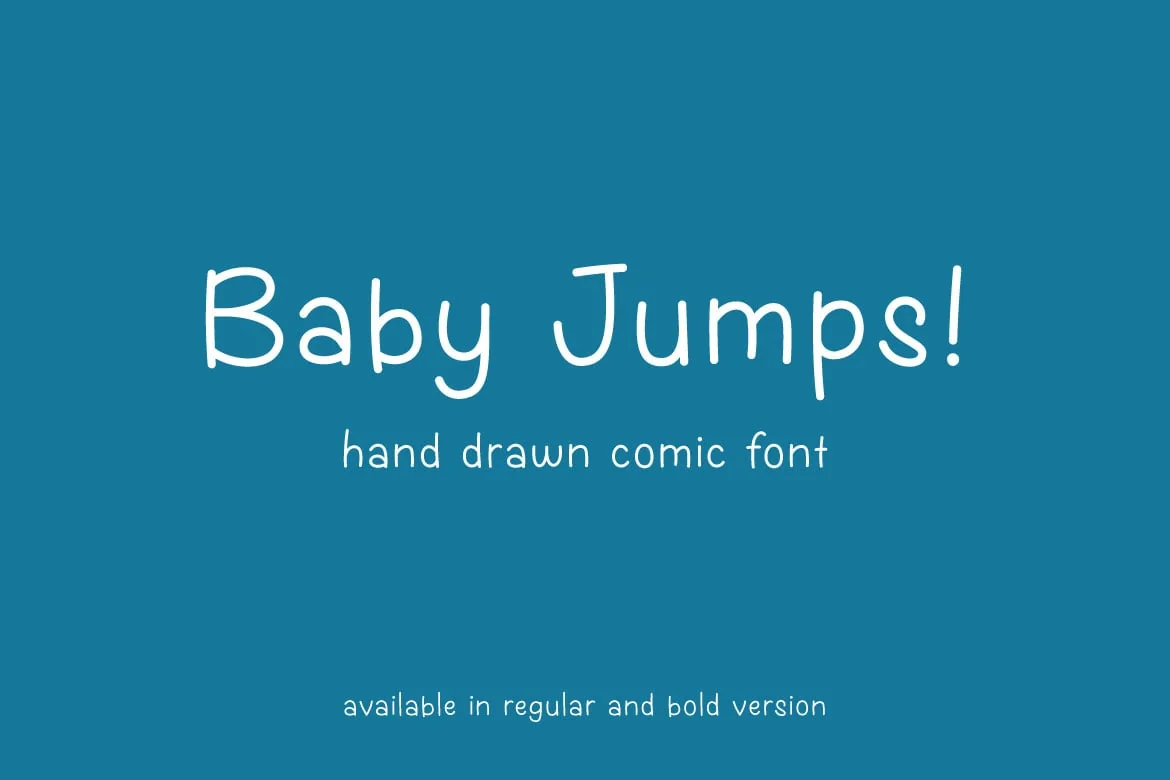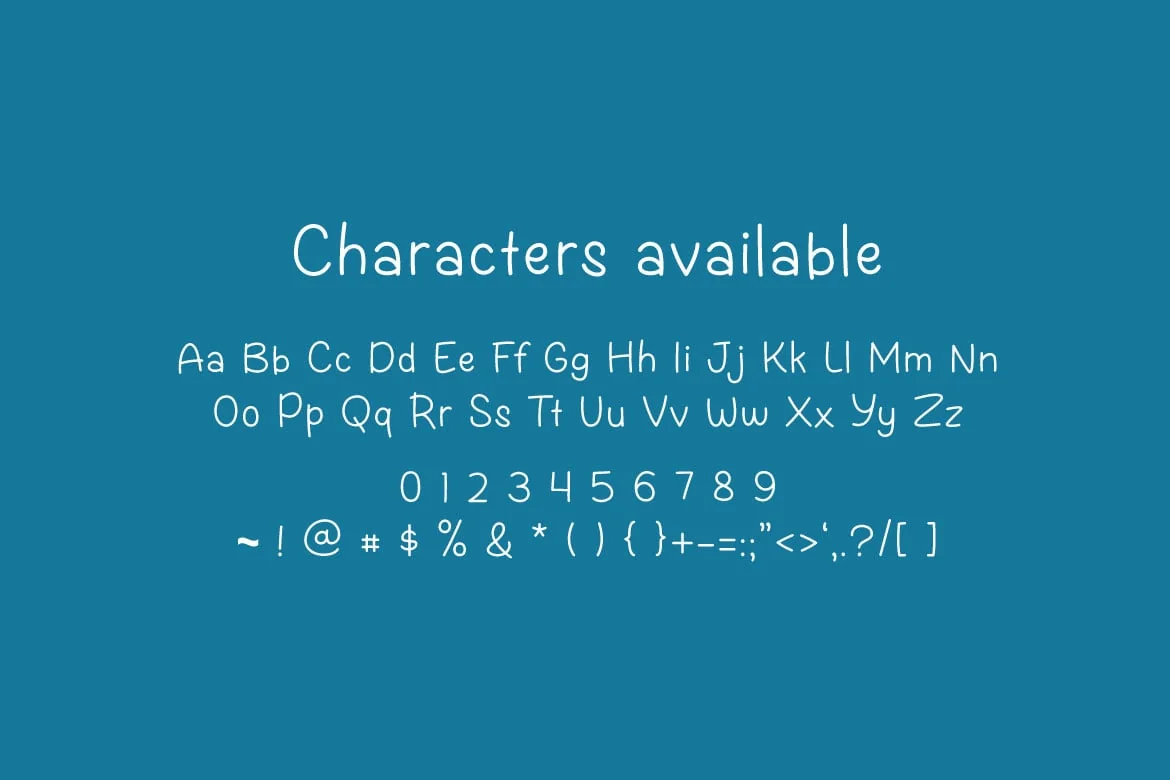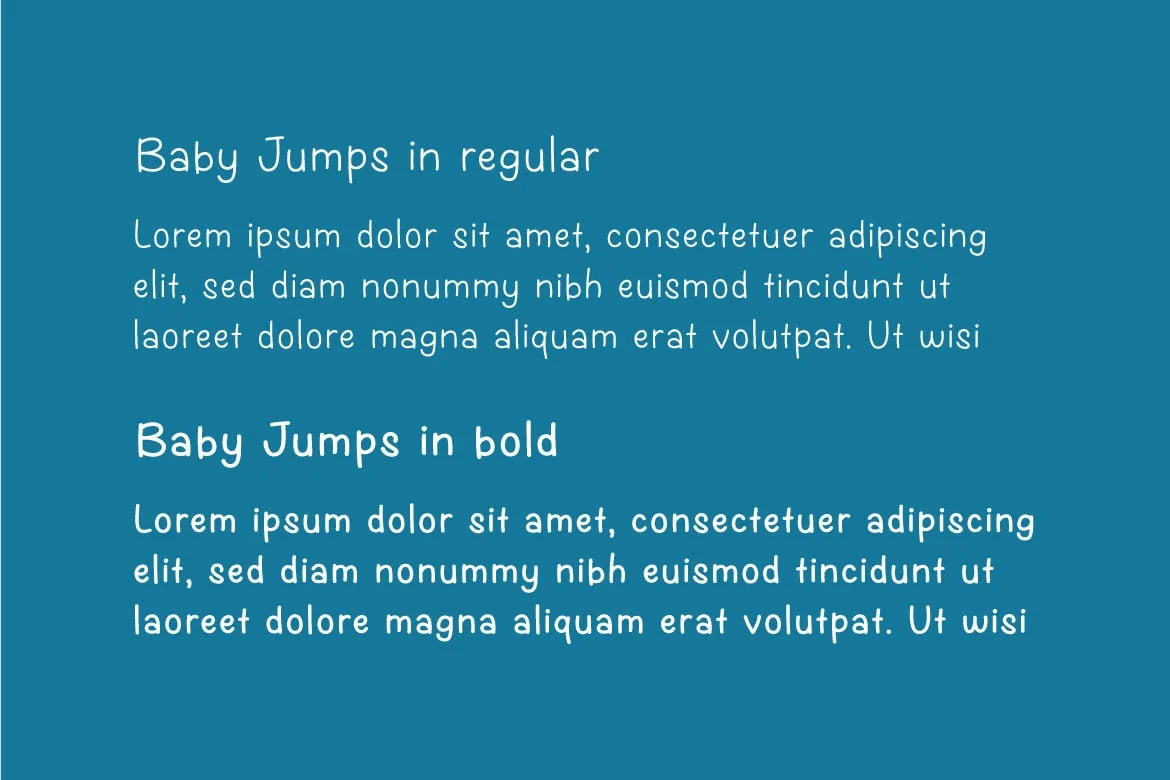
Baby Jumps – Hand drawn comic font
Handmade Comic font, that is Baby Jumps!
Baby jumps  perfectly for your Baby product, Children book, comic, kindergarten, toys, movie title, flyer, poster, book cover, title, headline, logo, magazine, banner, or even Any size artwork.
Baby jumps also available in regular and bold version